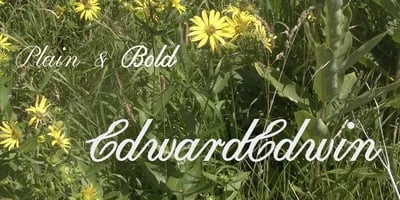
Edward Edwin Font
Edward Edwin Font is perfect for distinguished law firm branding, prestigious university materials, formal government documents, executive corporate identity, upscale gentleman's club signage, traditional banking institutions, luxury watch advertising, heritage whiskey labels, formal invitation design, and any refined project that embodies classic masculine sophistication and timeless professional elegance.
What makes Edward Edwin Font exciting is its distinguished masculine elegance that captures the essence of traditional British gentlemanly refinement and scholarly authority. This typeface embodies the confident sophistication of classic menswear with letterforms that suggest well-tailored suits, leather-bound libraries, and the understated power of established institutions. The font's distinguished character makes it perfect for brands and projects that want to communicate heritage, reliability, and the uncompromising quality that defines true gentleman's tradition.
The Edward Edwin Font family includes multiple weights and formal variations, featuring light, regular, medium, and bold versions along with condensed styles and classical alternate characters inspired by traditional British typography. This comprehensive collection allows designers to create sophisticated masculine typography that maintains the font's signature distinguished character while providing versatility for various formal and institutional design applications.
When exploring classic masculine typography, Edward Edwin Font represents an exceptional opportunity to work with a typeface that authentically embodies traditional masculine sophistication and institutional authority. This font demonstrates exceptional craftsmanship in balancing formal elegance with contemporary functionality, creating letterforms that feel both historically grounded and professionally relevant for modern applications.
Professional designers appreciate Edward Edwin Font for its ability to instantly establish credibility and masculine sophistication across various professional environments. The font's distinguished character makes it particularly effective for financial institutions, legal practices, and luxury menswear brands seeking to communicate trustworthiness and traditional values to discerning clientele who appreciate classic masculine elegance.
The enduring appeal of Edward Edwin Font lies in its perfect representation of timeless masculine sophistication and institutional reliability that transcends changing fashion trends. This typeface serves as a powerful foundation for brands that need to communicate stability, heritage, and the enduring values of traditional masculine refinement in professional contexts.
For creative professionals working with prestigious and masculine-oriented brands, Edward Edwin Font represents the ultimate typography solution that brings authentic gentlemanly sophistication and distinguished elegance to any application, ensuring designs reflect the classic masculine virtues and institutional authority that define true professional distinction.